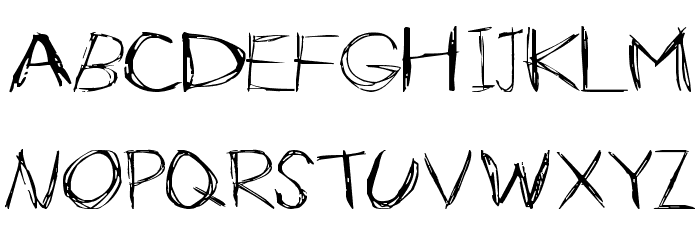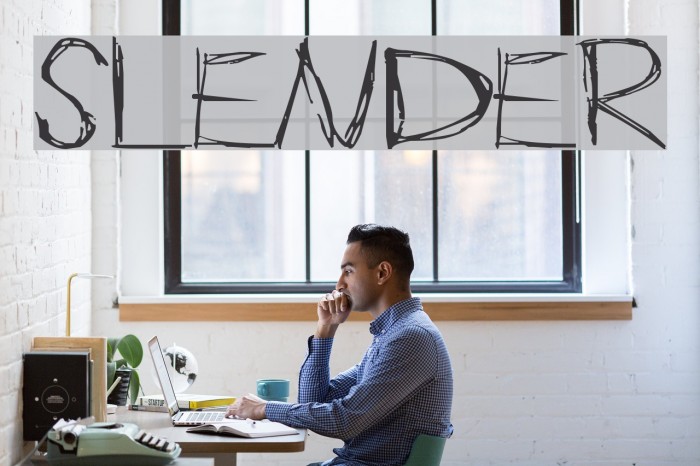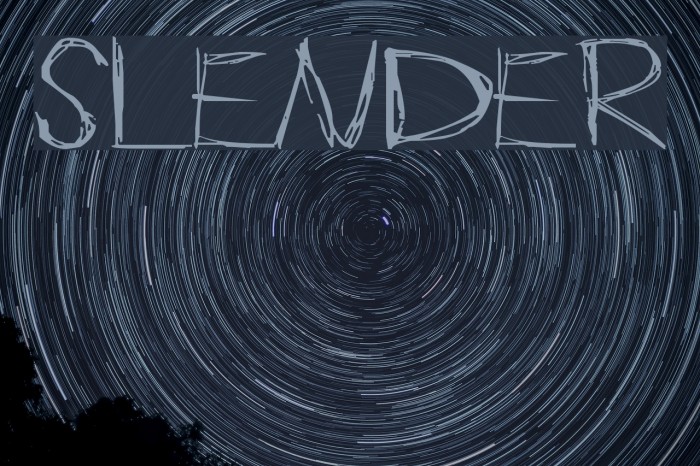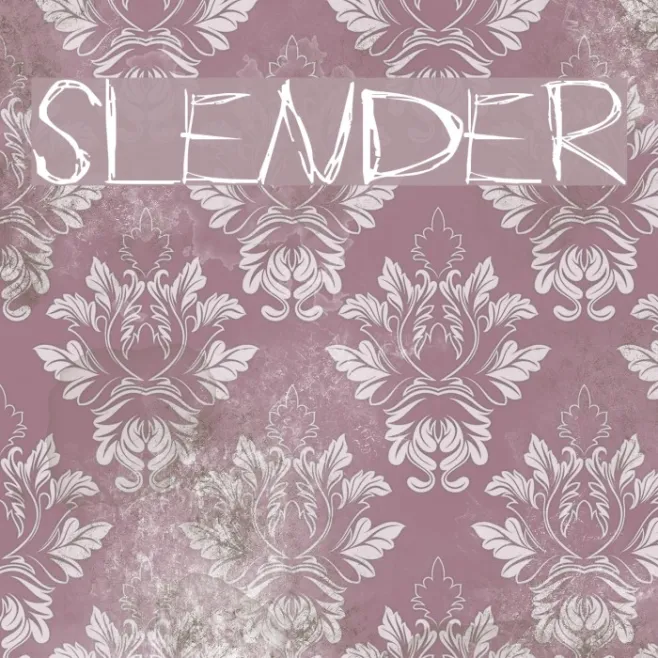
Slender Font
This font features a unique and edgy design with a hand-drawn appearance. The uppercase and lowercase letters exhibit irregular, jagged edges that give a sense of movement and energy. The numerals are bold and slightly more structured, providing a striking contrast to the letters. Special characters maintain the same dynamic style, adding to the font's overall expressive nature. The font's artistic flair makes it stand out, ideal for projects that require a bold and unconventional look.
An edgy, hand-drawn font with jagged edges and dynamic style.
- Proposed Projects: Perfect for album covers, posters, graffiti art, and any creative project needing a bold statement.
- Overall Style: Modern, Artistic